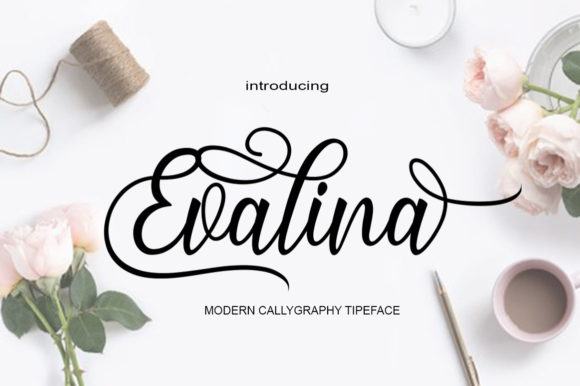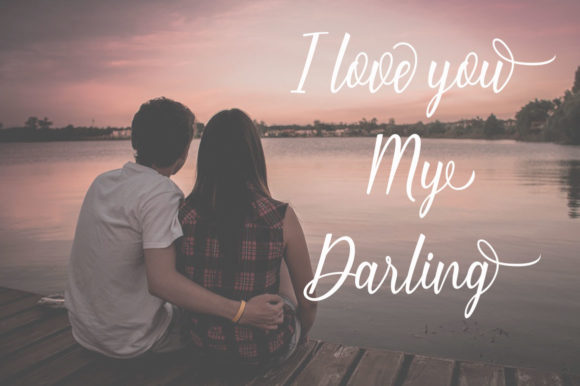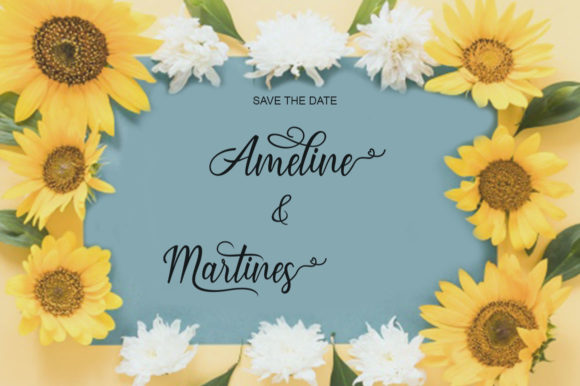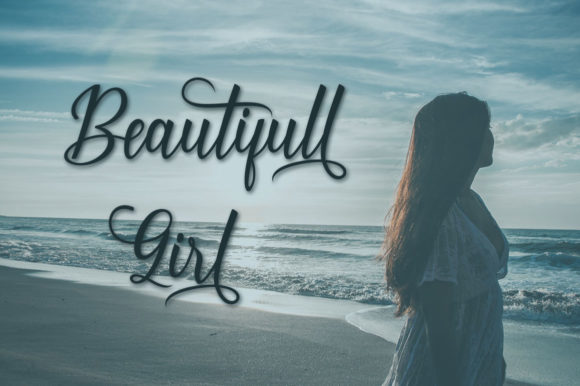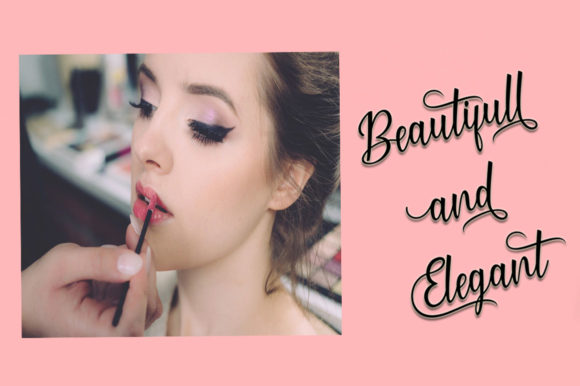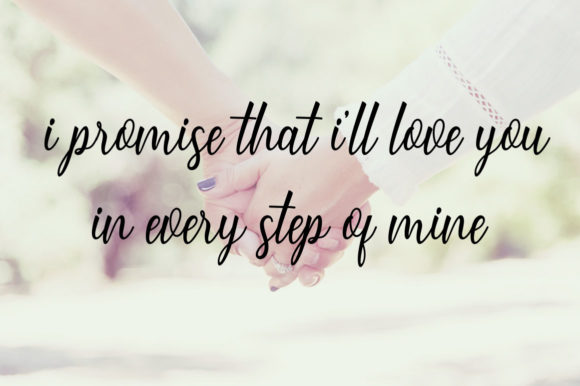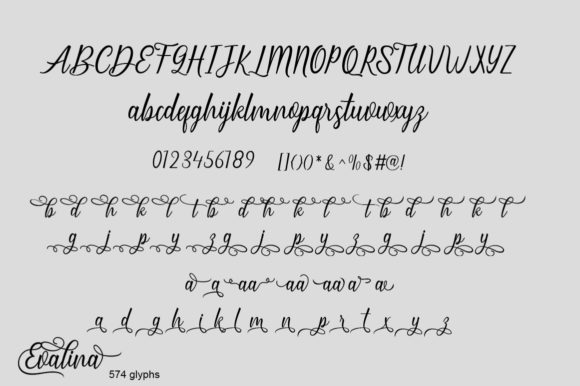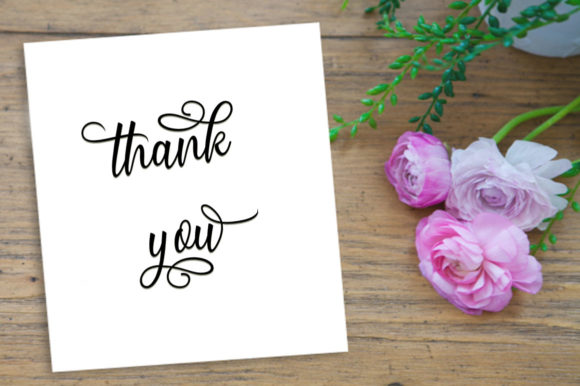
Evalina Font
About Evalina Font
Evalina is a stunning, one-of-a-kind handwritten font with incredible swashes. Fall in love with its bold charm, and turn any design project into a stand out!